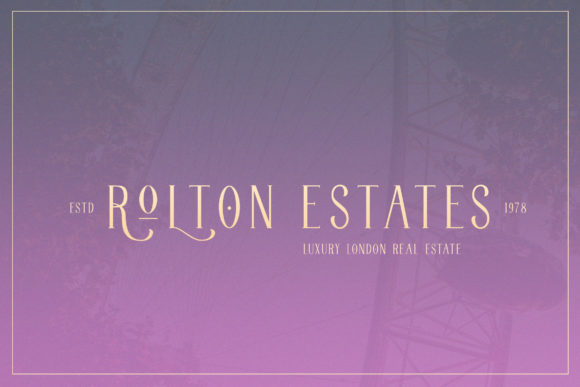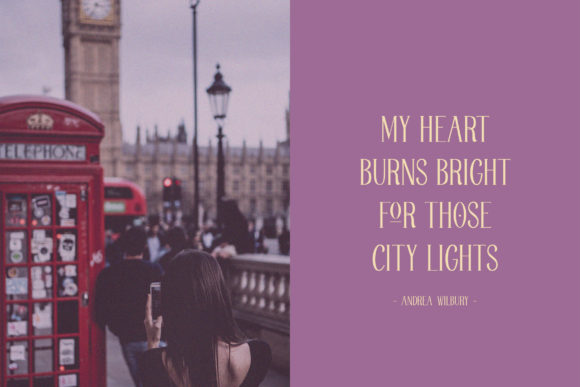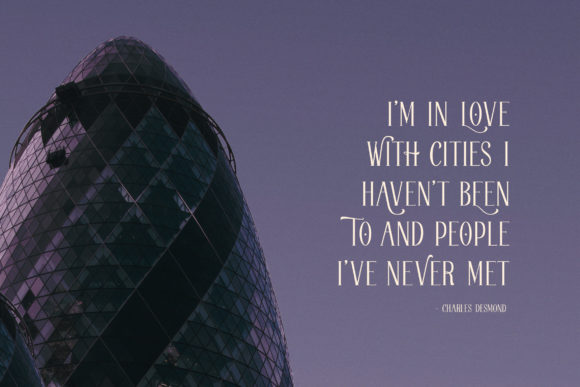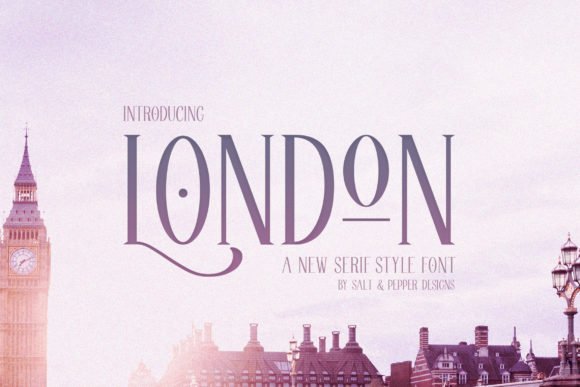
Introduction to London Font
London is an elegant, thin lettered and simple serif font.
Whatever the topic, this font will be a wonderful asset to your font library, as it has the potential to enhance any creation .
London Font offers exceptional quality and versatility, making it a valuable addition to your design toolkit. Whether you’re creating for personal projects or commercial use, London Font delivers professional results.